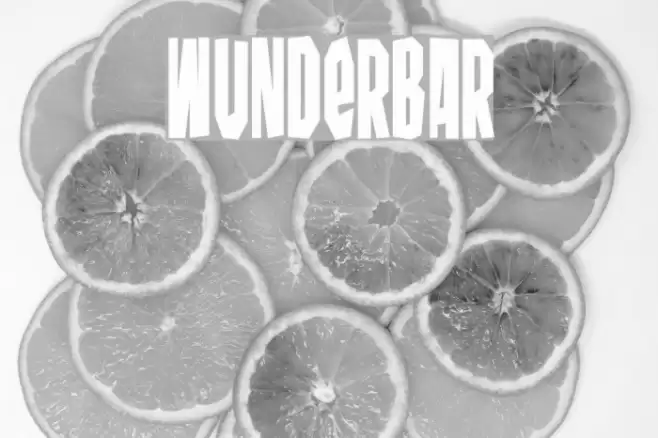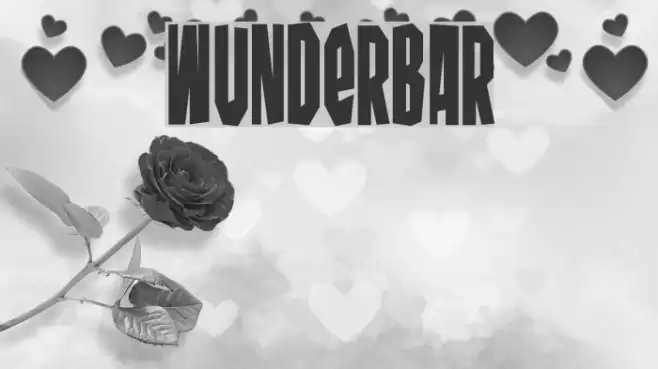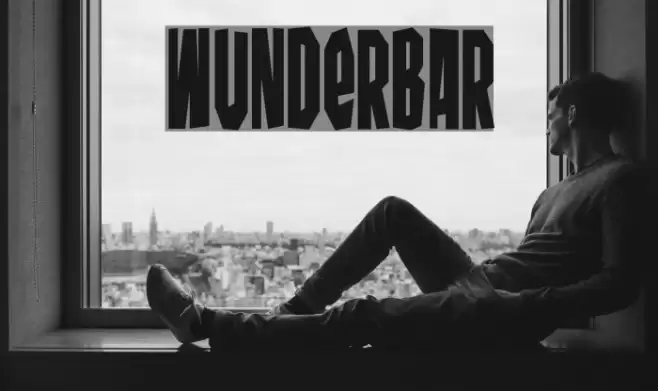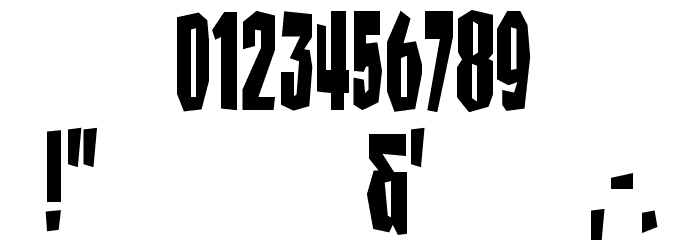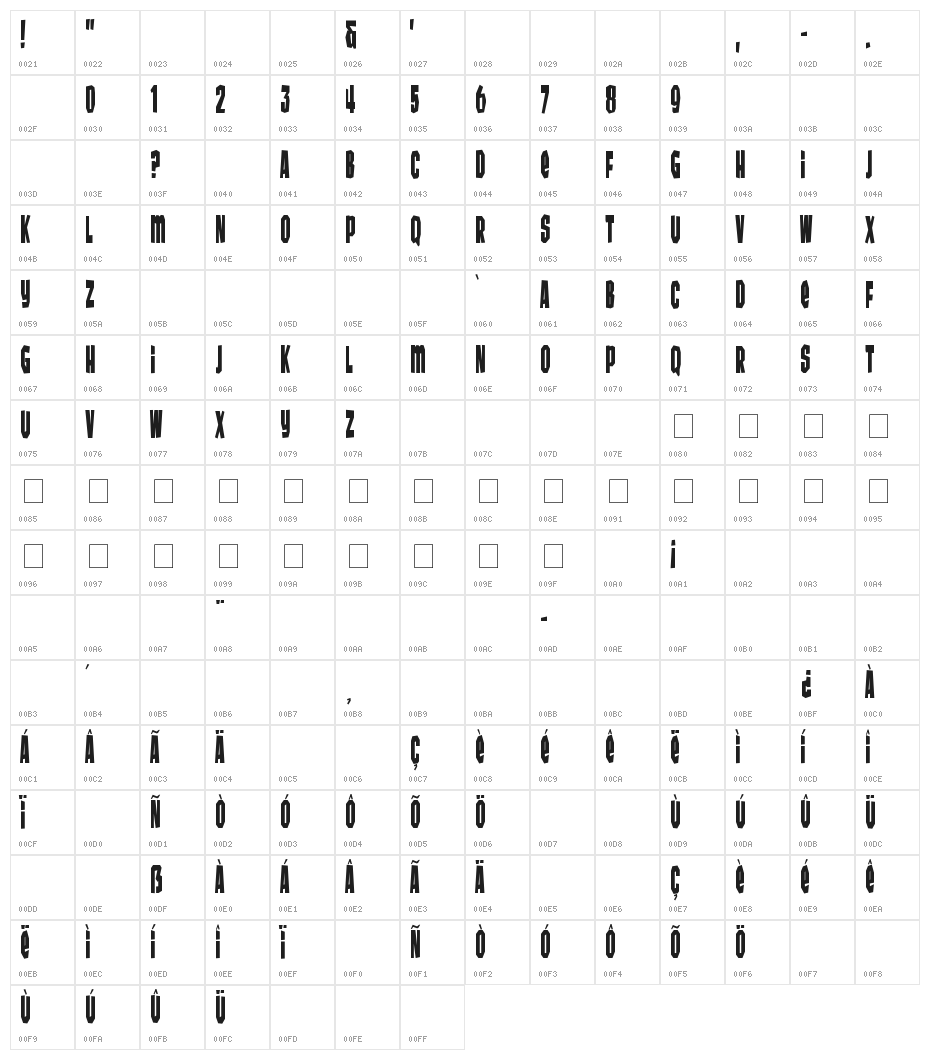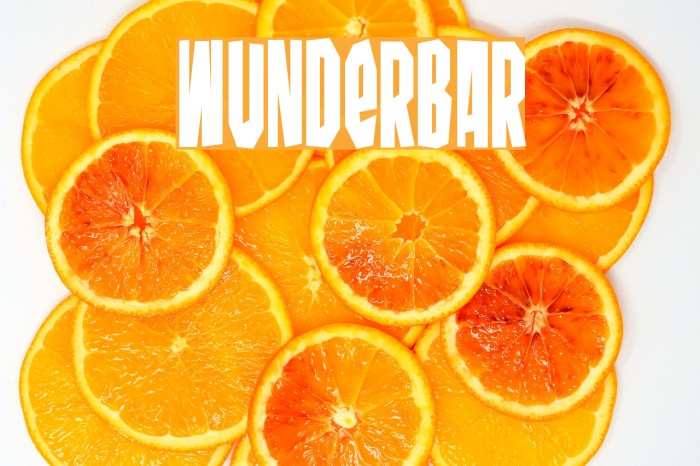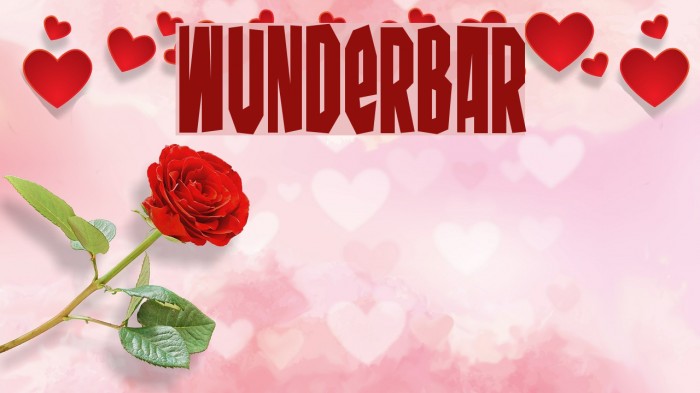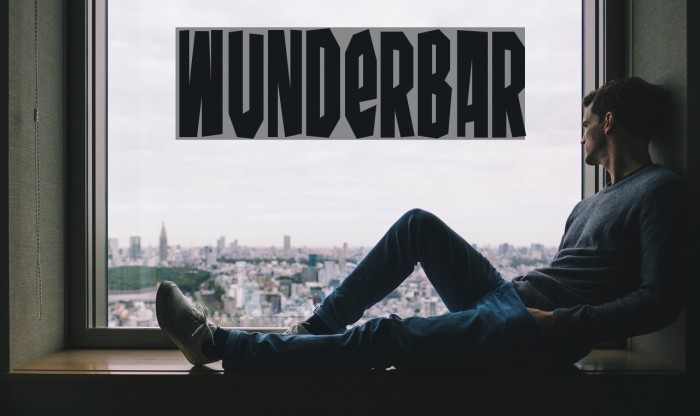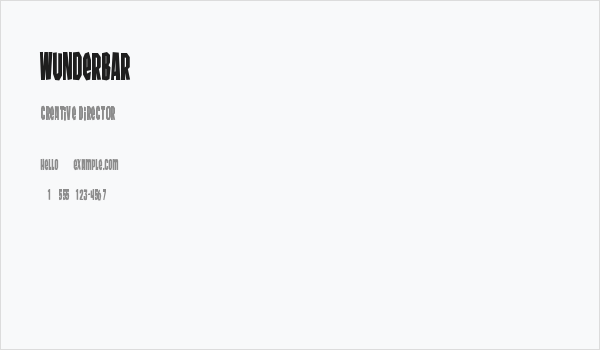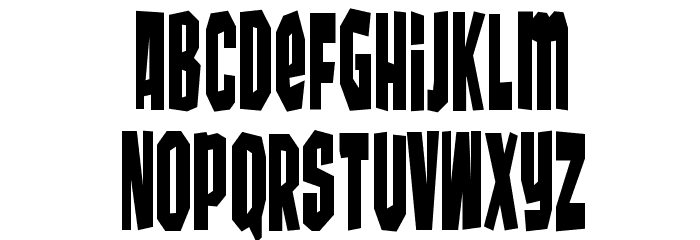
Wunderbar Font
Wunderbar Description
This font features a bold and impactful design with a geometric and angular style. The characters are heavily stylized, with sharp edges and a blocky appearance, giving it a strong visual presence. The uppercase letters are uniform in height, while the numbers and special characters maintain the same bold aesthetic. The font's unique design makes it suitable for attention-grabbing headlines and titles. Its distinct style is reminiscent of retro or vintage themes, yet it maintains a modern edge due to its clean lines and structured form.
A bold, angular font with a geometric and impactful style from Cartoon fonts.
- Proposed Projects: Ideal for posters, logos, branding, and any project requiring a strong visual impact.
- Overall Style: Modern, Vintage